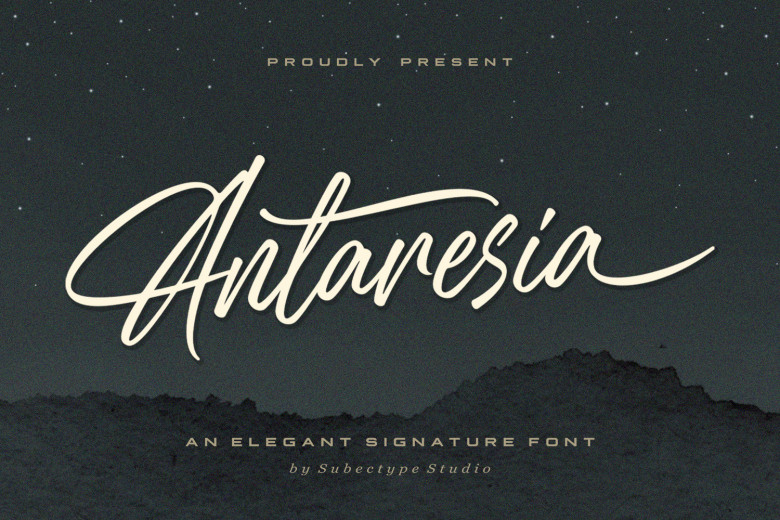
Antaresia Font
Antaresia font is an elegant Handwritten Font ideal for posters, logotypes, album covers, signatures and signatures. By incorporating Antaresia font into your designs you can elevate and make a powerful statement using typography.
Antaresia Handwritten Script Font